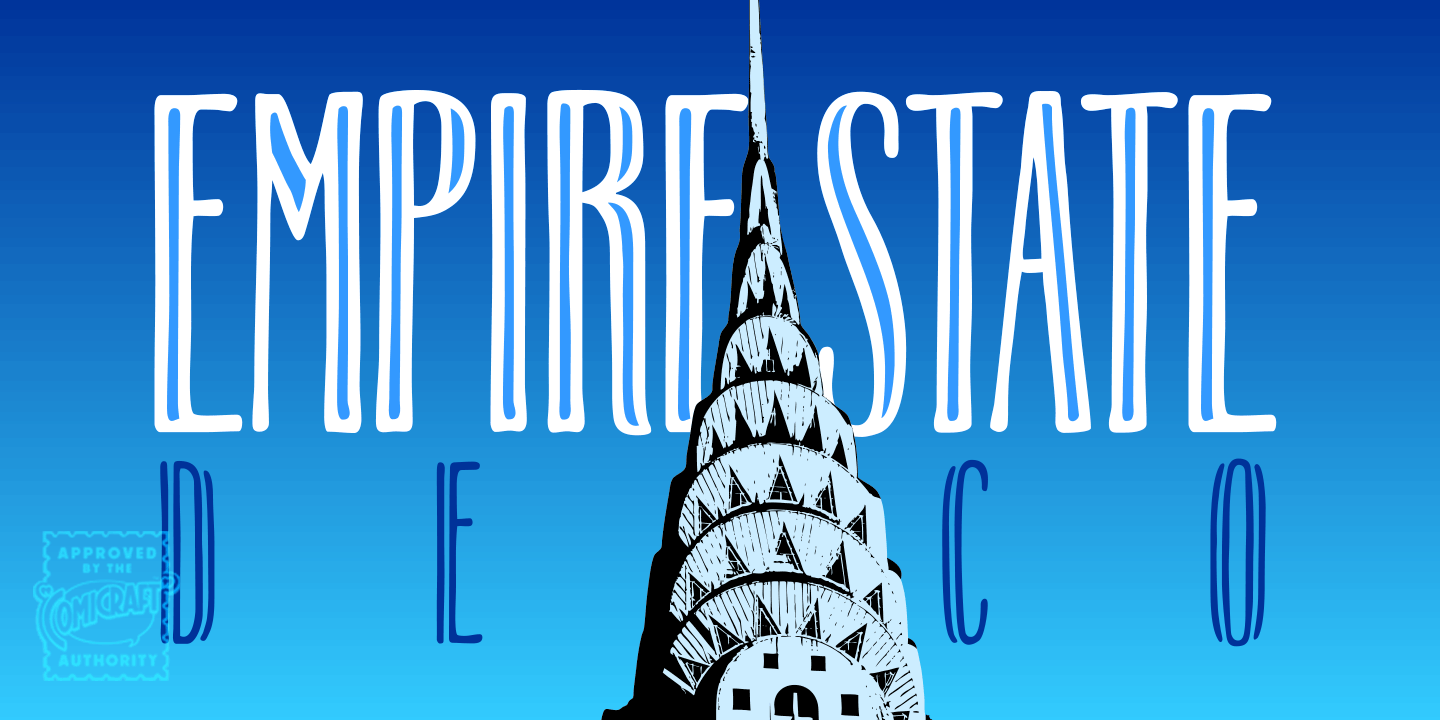
Empire State Deco Font is perfect for vintage 1920s branding, art deco hotel signage, classic jazz club logos, retro luxury products, elegant speakeasy invitations, sophisticated architectural displays, glamorous fashion magazines, upscale restaurant menus, prestigious award ceremonies, refined corporate presentations, ornate wedding stationery, and timeless luxury brand identities.
What makes Empire State Deco Font so exciting is its magnificent art deco sophistication and geometric elegance that perfectly captures the glamorous spirit of the golden age of design. This stunning typeface features distinctive angular forms, luxurious proportions, and ornate deco details that evoke feelings of opulence, sophistication, and the timeless elegance of 1920s architectural grandeur, making it ideal for projects that need to communicate luxury heritage, classic refinement, and the enduring appeal of art deco magnificence.
The Empire State Deco Font family typically includes regular and ornamental variations with decorative deco elements, geometric ligatures, and elegant character sets that enhance the sophisticated aesthetic while maintaining excellent readability for luxury design applications.
Whether you're creating branding for upscale hospitality or designing materials for vintage-inspired luxury products, Empire State Deco Font Free Download delivers the perfect typography solution for projects requiring art deco elegance and timeless sophistication. This versatile font masterfully combines historical authenticity with contemporary functionality, making it an essential resource for designers working on projects that celebrate the golden age of design, architectural beauty, and the lasting influence of art deco's geometric perfection and luxurious aesthetic vision.